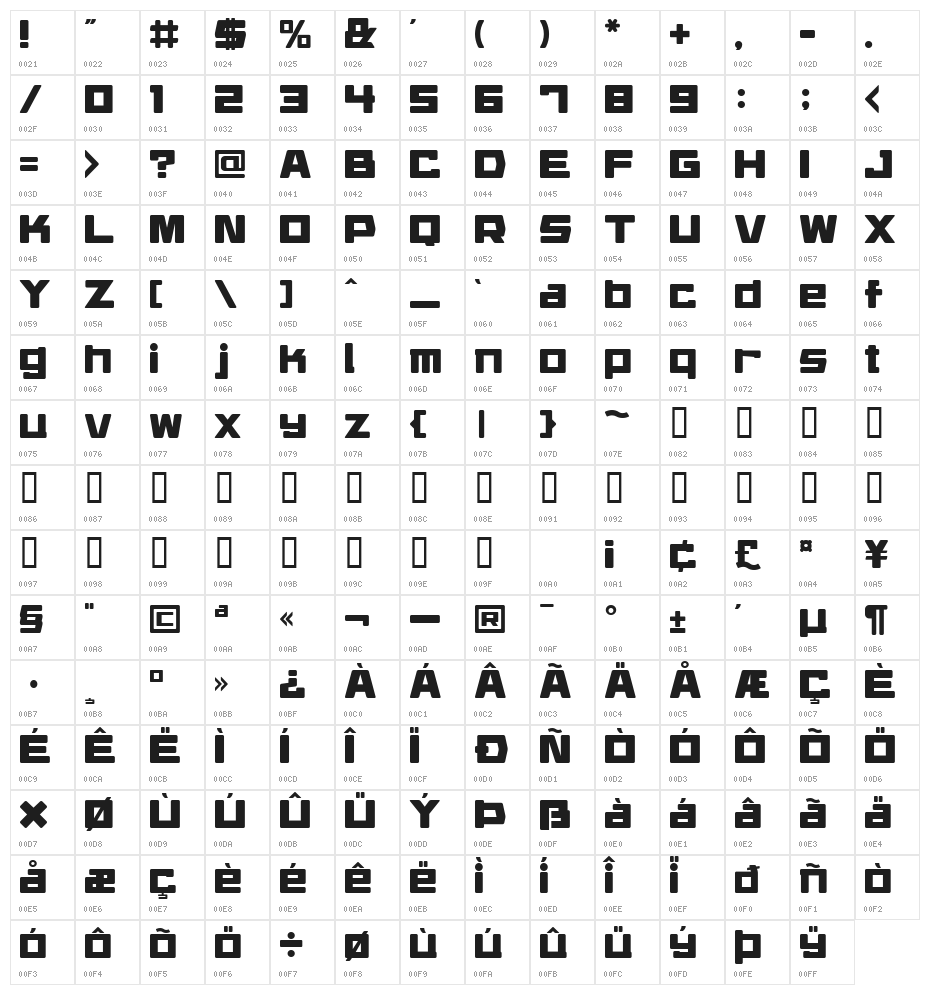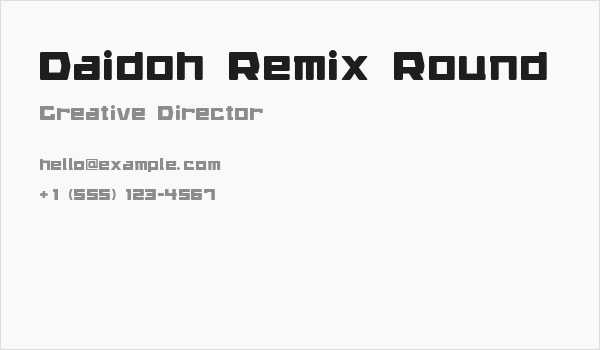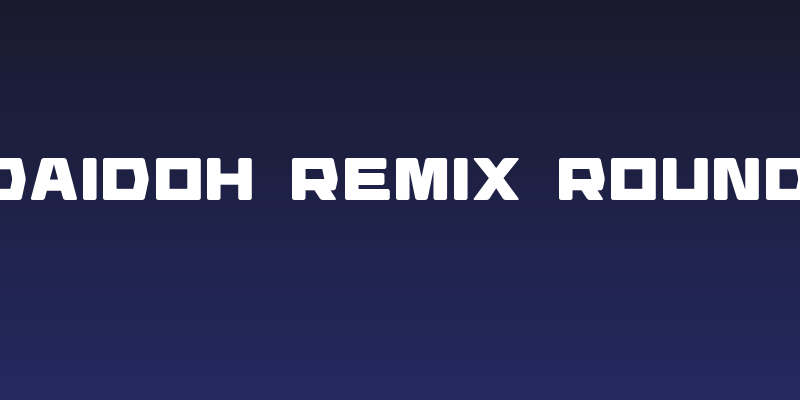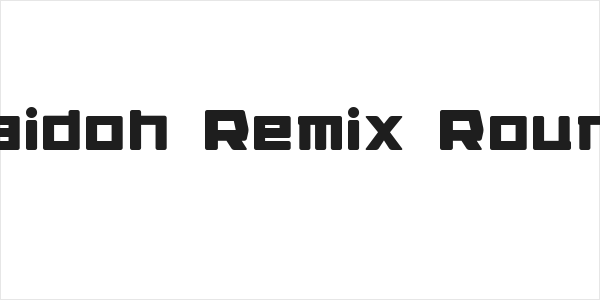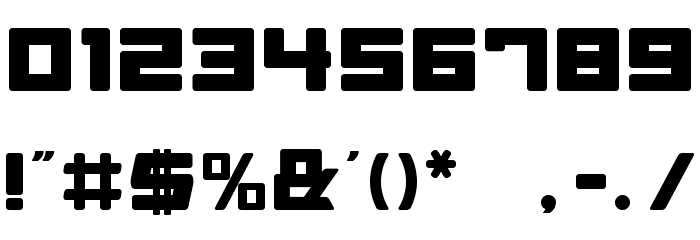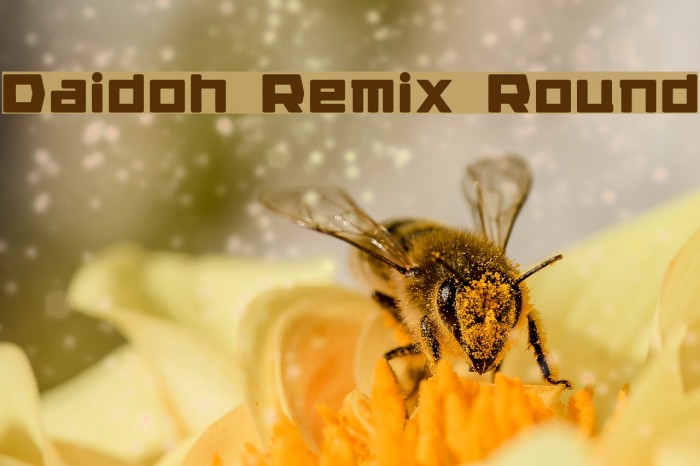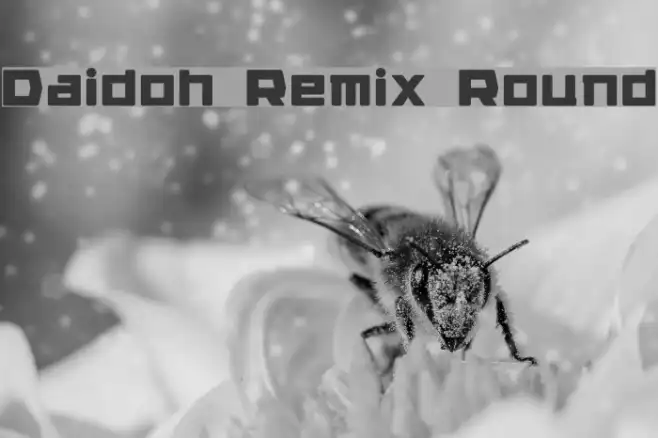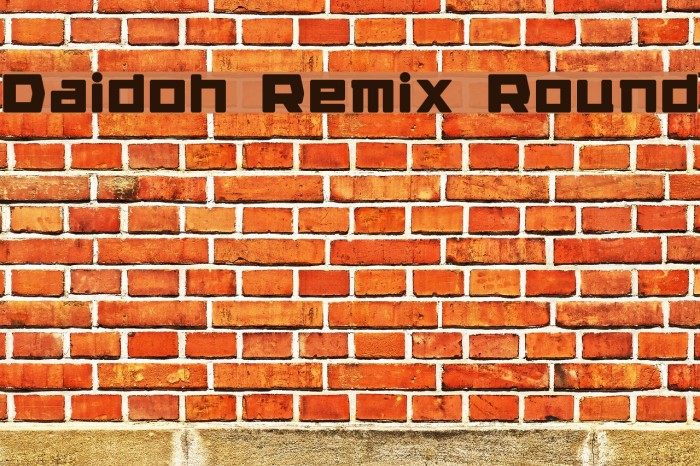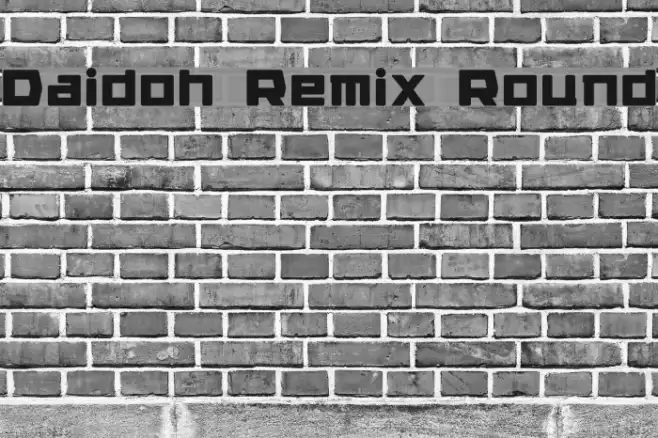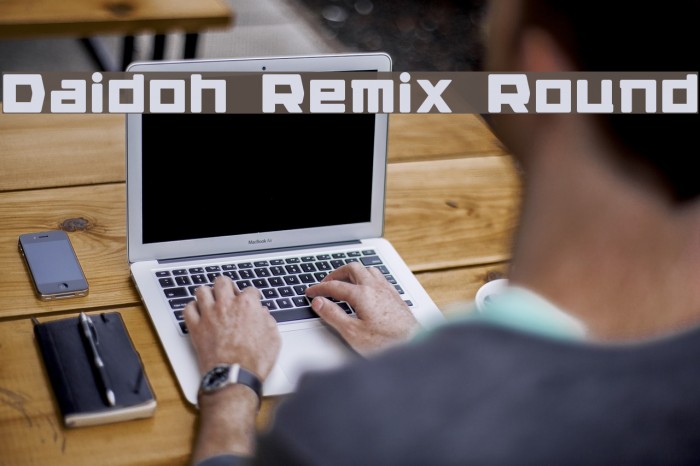
Daidoh Remix Round Font
Daidoh Remix Round Description
This font features a bold, geometric style with rounded edges, giving it a modern and approachable appearance. The characters are uniformly wide, contributing to a monospaced feel, although they are not strictly monospaced. The uppercase letters are strong and assertive, while the lowercase letters maintain the same boldness with slightly softer curves. The numerals are consistent with the overall style, ensuring readability and uniformity. Special characters are designed to match the bold, rounded aesthetic, making them stand out while remaining cohesive with the rest of the font.
| Proposed Projects | Ideal for branding, headlines, posters, and digital media where a strong, modern presence is desired. |